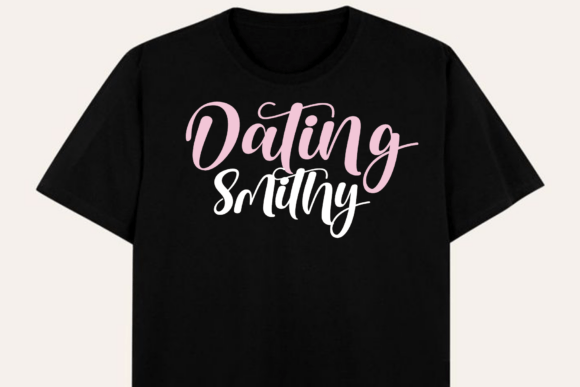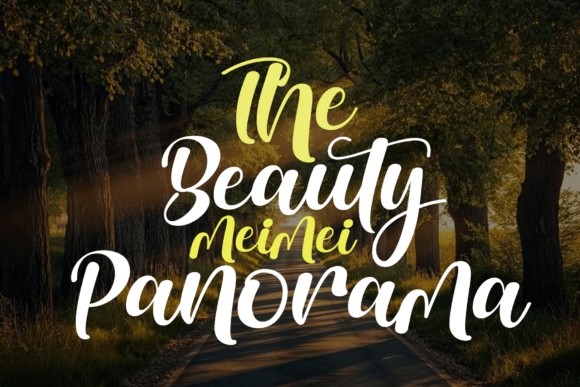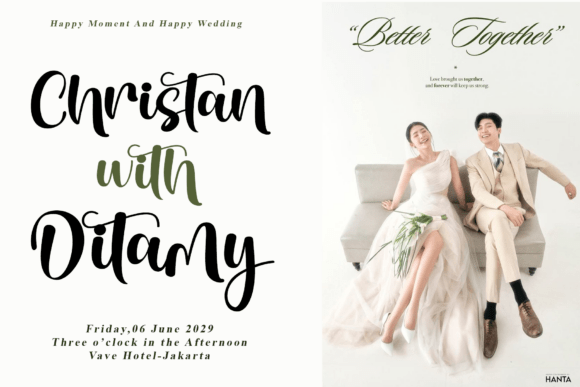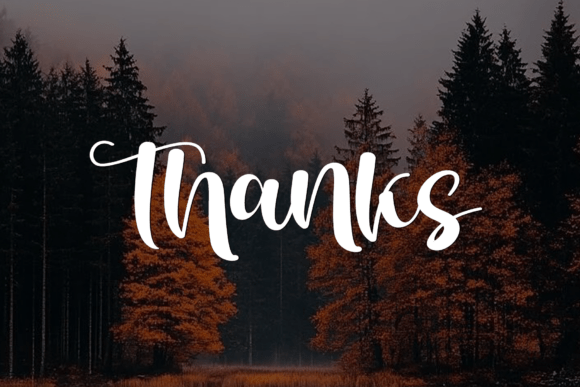
Introduction to Originals Font
Step into the world of genuine, stylish penmanship with the Originals font, a captivating modern handwritten script typeface.
This font showcases smooth, rounded strokes and a semi-connected flow that looks authentic and effortlessly chic The generous curves and balanced weight give the Originals font a warm, approachable character, while the consistent style maintains professional clarity.